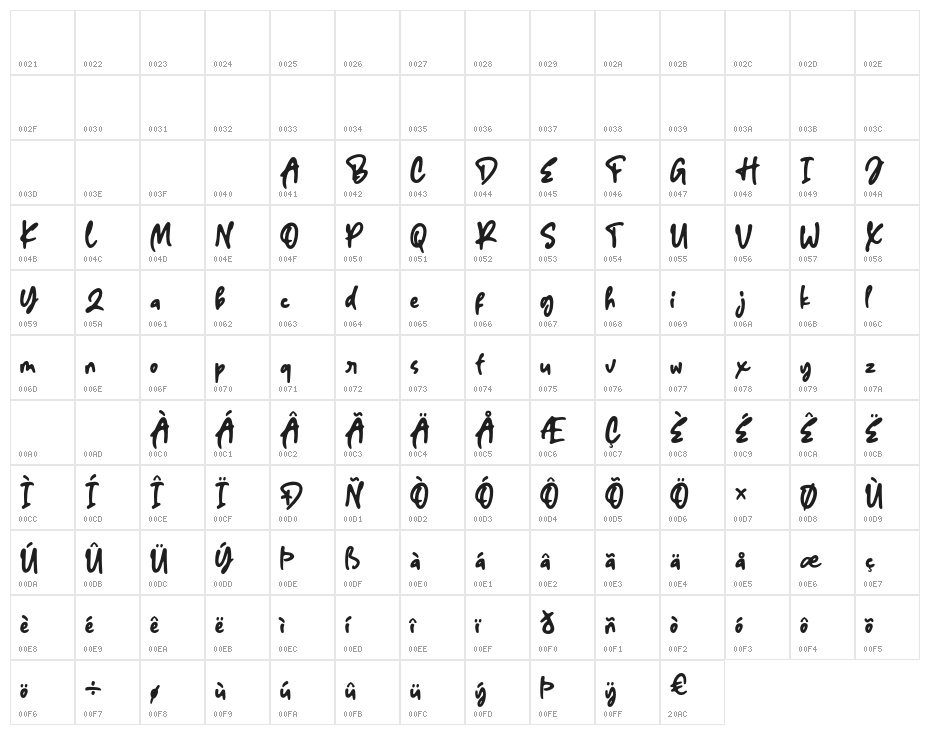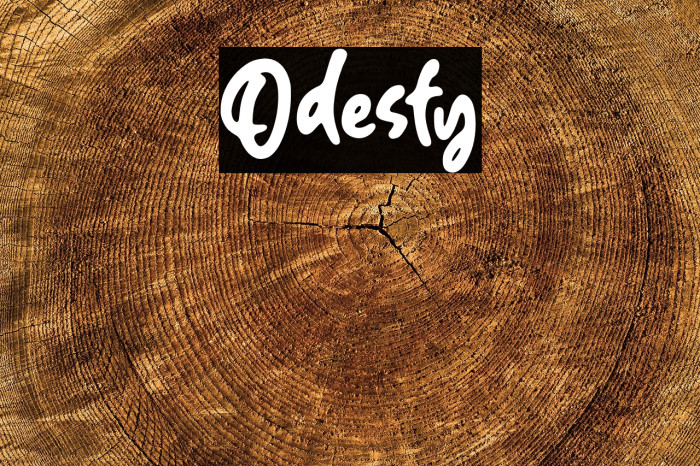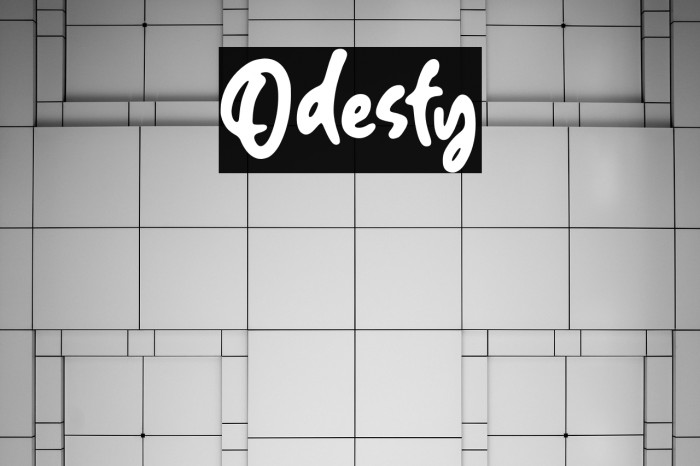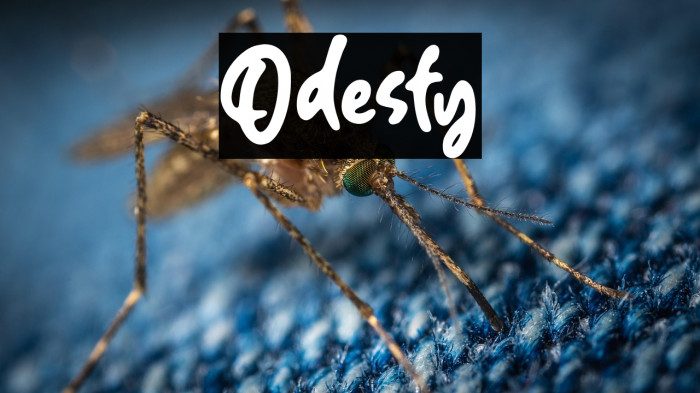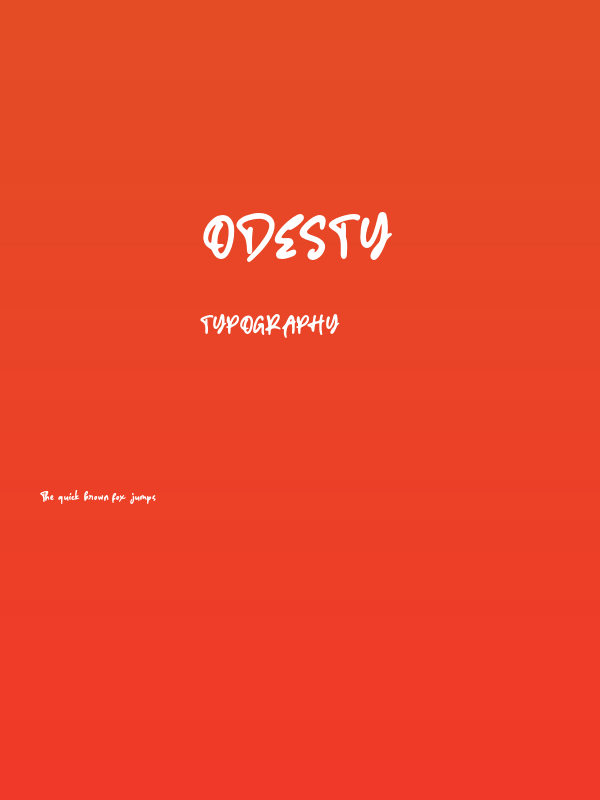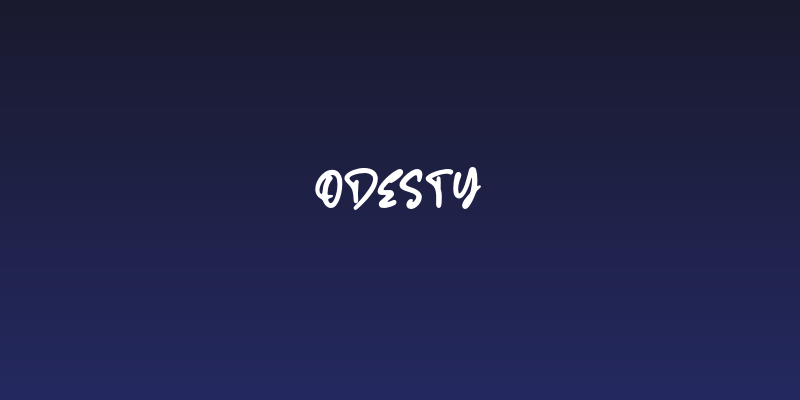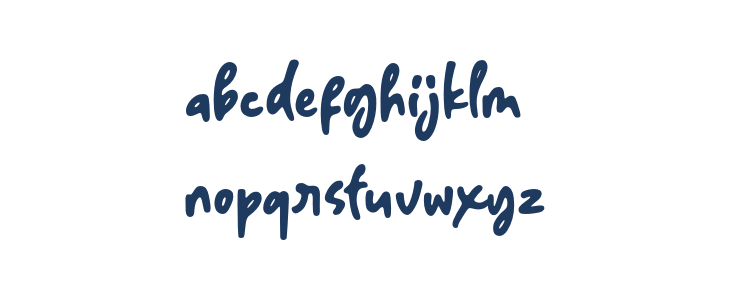
Odesty Font
Odesty Description
This font features a bold and expressive handwritten style, characterized by its fluid and dynamic strokes. The letters have a playful and casual appearance, with varying thickness that adds a sense of movement and energy. The uppercase and lowercase letters maintain a consistent style, with rounded edges and a slightly slanted orientation, giving it a friendly and approachable feel. The numbers and special characters are designed to match the overall aesthetic, ensuring a cohesive look across all text elements.